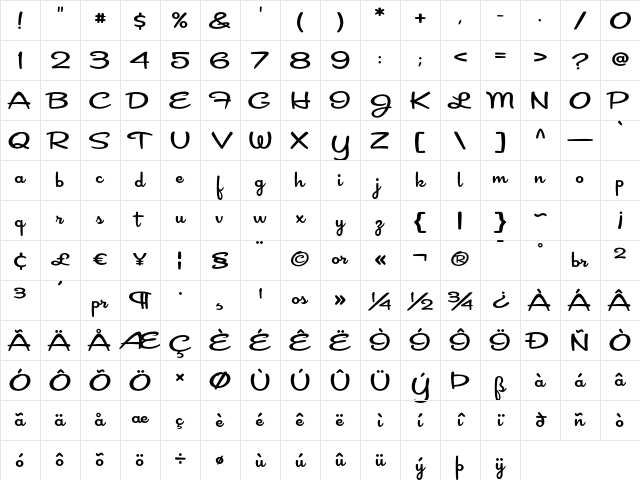
Complete Cocktail Shaker Regular glyph index. Displaying only characters natively supported by Cocktail Shaker Regular font.
Cocktail Shaker is a composed and adaptable typeface that performs quietly and consistently across a wide range of design contexts.
Pro Tip: Use Cocktail Shaker in both headline and body roles to test its range before committing to a single application.